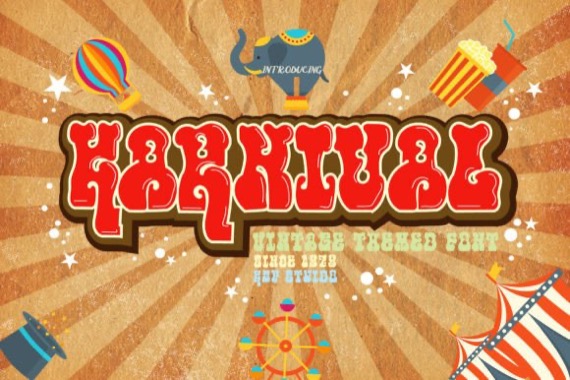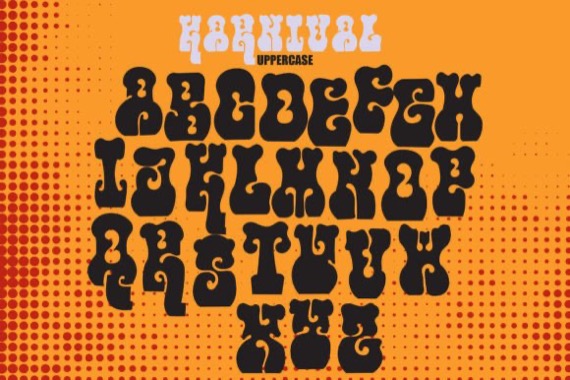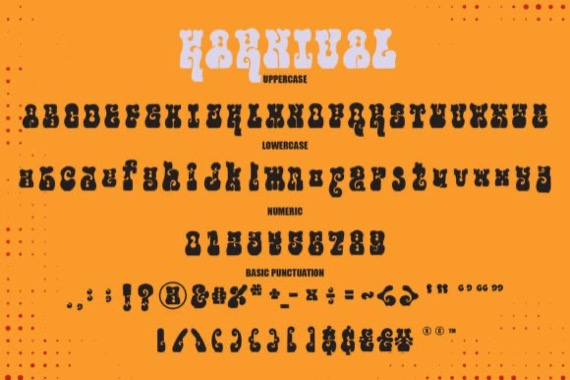
Introducing a new vintage modern typeface from KtwoP, Karnival is a cool and graffiti-styled display font, featuring a street art vibe. This font is suitable for designs such as t-shirts, sportswear, logos, advertisements, clothing, and more. This font is PUA encoded which means you can access all of the amazing glyphs and ligatures with ease!
Karnival Vintage Display Font